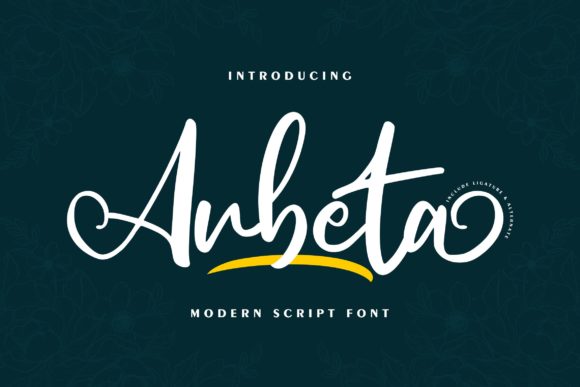
Arbeta Font
Dive into the world of Arbeta Font, a striking handwritten font that spells enchantment and creativity. This modern script font is your gateway to transforming your designs into captivating works of art. Its bold strokes and elegant curves lend an air of sophistication, making it the perfect choice for Instagram posts, calligraphy projects, and any endeavor where artistic expression takes center stage.
With Arbeta Font, you hold the key to unlocking your creative potential. Its versatility knows no bounds, allowing you to weave magic into wedding invitations, logos, posters, and countless other projects. Picture your words dancing across the page, each letter a stroke of genius, captivating your audience with its charm and allure.
Arbeta Font isn't just a font; it's an experience. Its meticulously crafted characters evoke a sense of wonder and delight, inviting viewers to immerse themselves in the beauty of your creations. Whether you're a seasoned designer or just starting your artistic journey, Arbeta Font will guide you towards greatness, empowering you to turn your visions into tangible masterpieces.
So, embark on this creative odyssey with Arbeta Font. Let its enchanting aura ignite your imagination and transport you to a realm where art and beauty collide. With this font as your muse, there's no limit to the masterpieces you can create. Unleash your inner artist and let Arbeta Font transform your designs into breathtaking works of art. Dive in now and experience the magic for yourself!